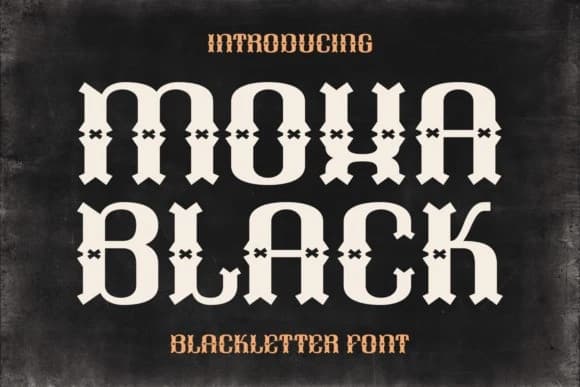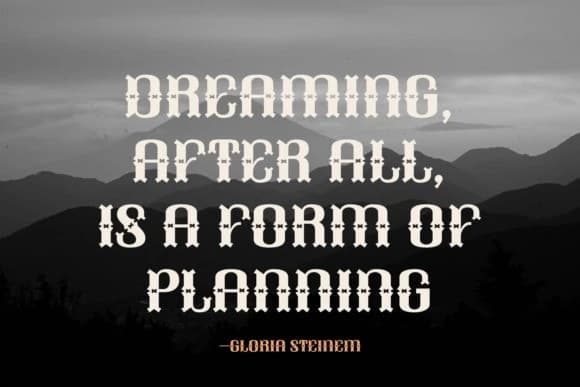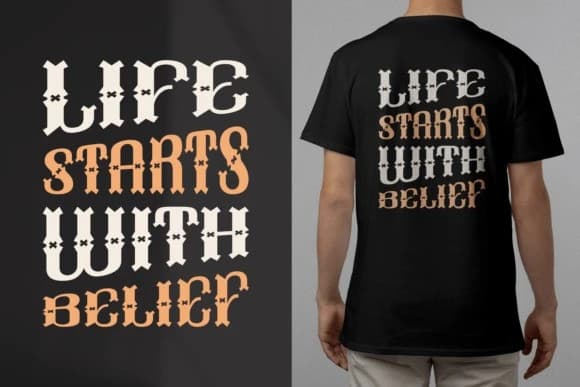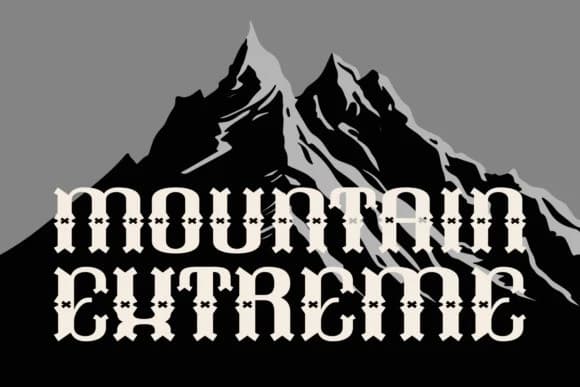
Moxa Black Font
Moxa Black Font – a standout in the realm of Blackletter fonts. With its vintage charm and old-style appeal, this grunge font captivates with its unique clean aesthetics. It’s a dream for crafters and a must-have for magazine designs